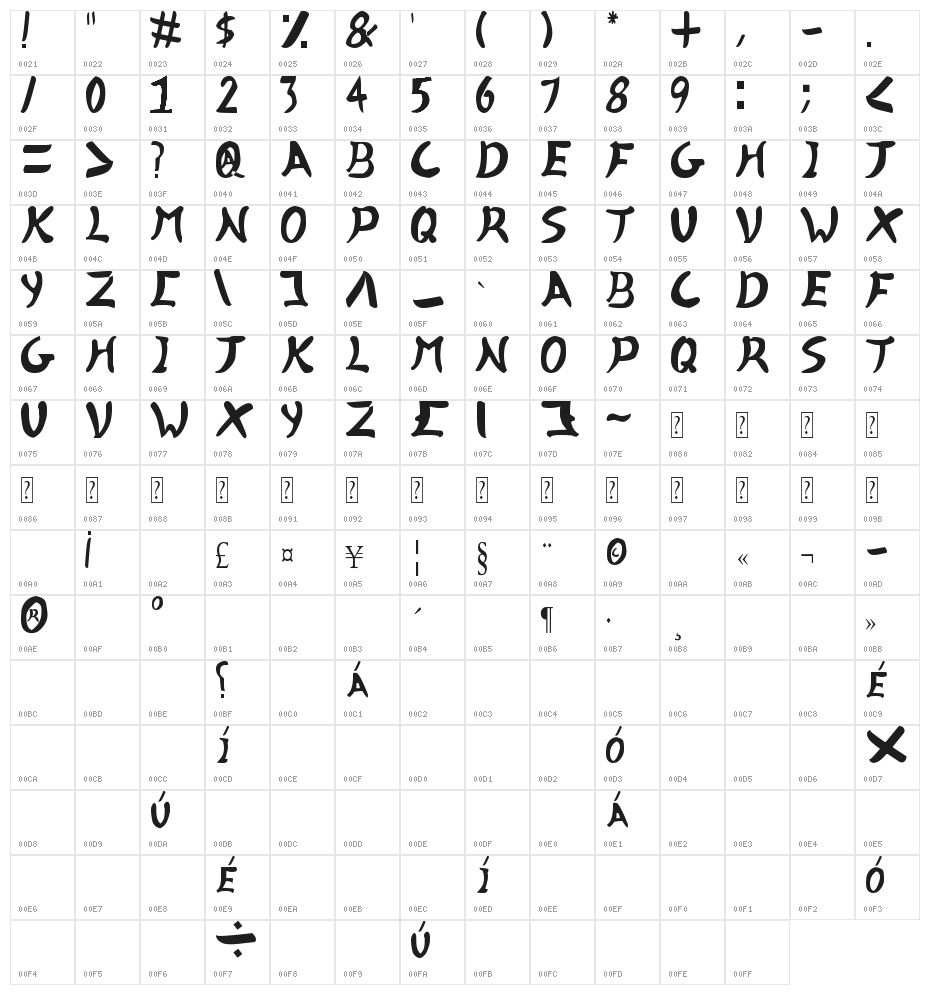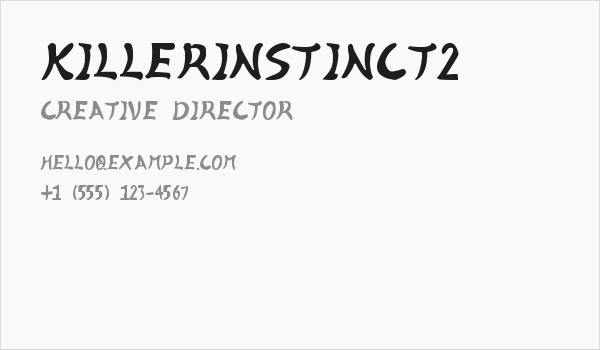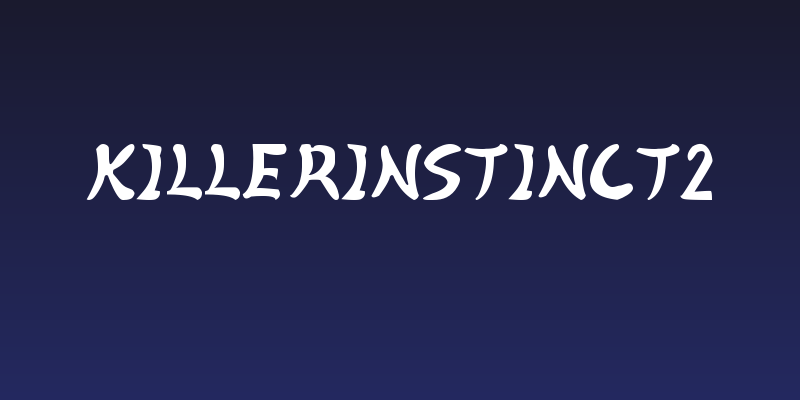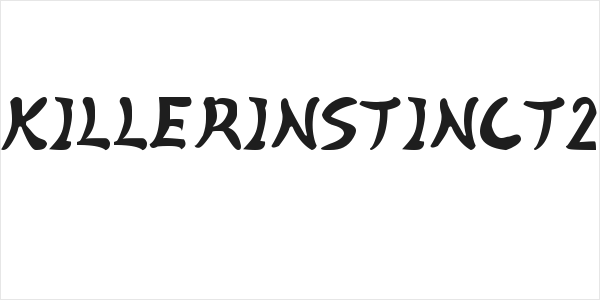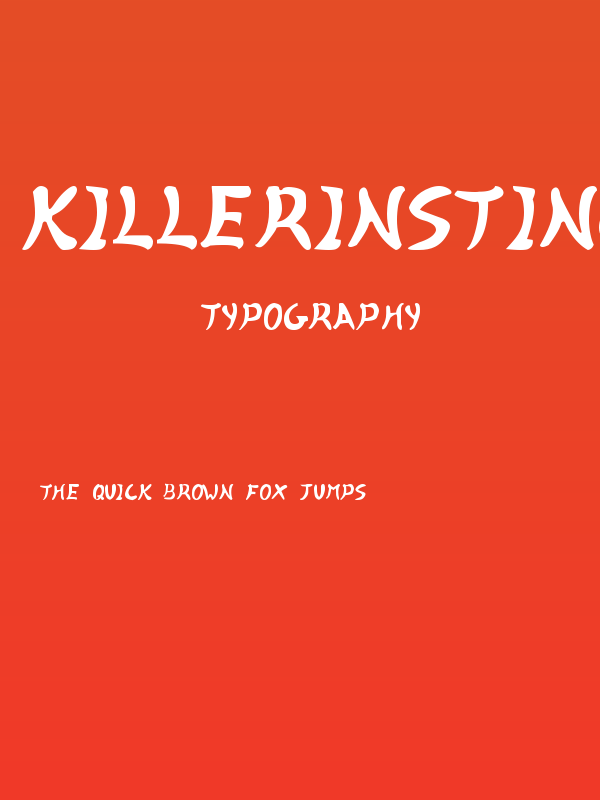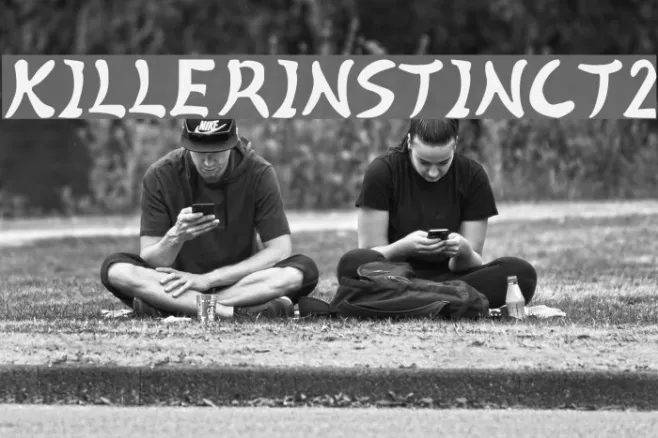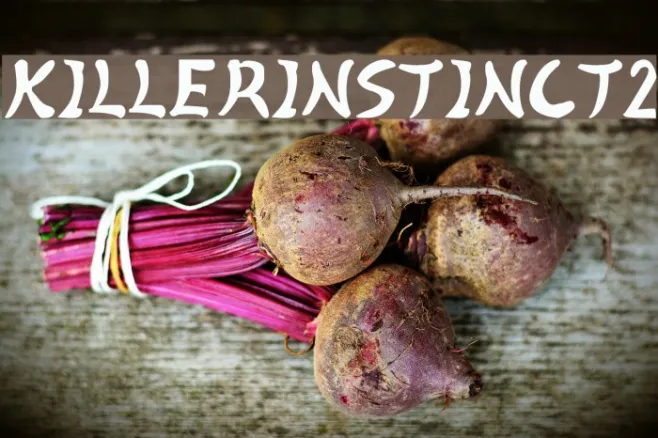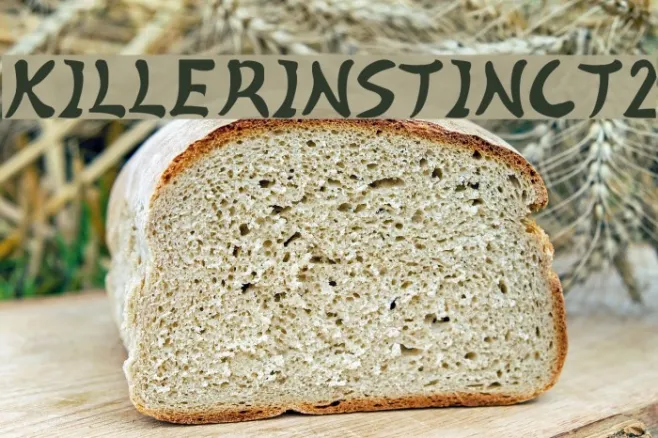
KillerInstinct2 Font
KillerInstinct2 Description
This font features a bold and dynamic style with a strong presence. The characters are designed with a unique flair, incorporating sharp angles and smooth curves that create a sense of movement and energy. The uppercase letters are particularly striking, with a slightly aggressive stance that commands attention. The lowercase letters maintain consistency with the uppercase, offering a cohesive look. Numbers and special characters are equally bold, ensuring readability and impact. This font is ideal for projects that require a strong visual statement.
| Proposed Projects | Ideal for video game titles, movie posters, branding for sports teams, or any project needing a bold, energetic typeface. |